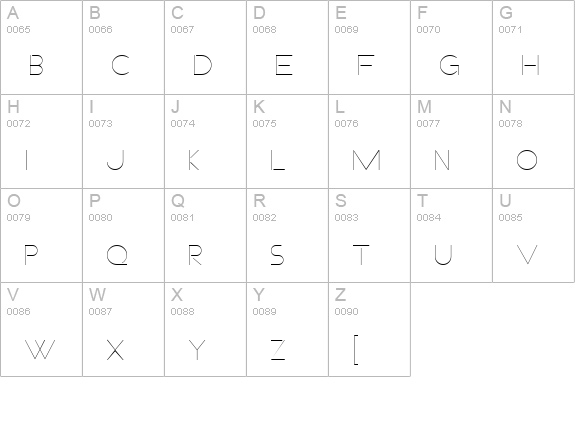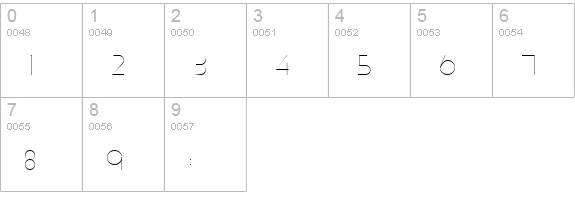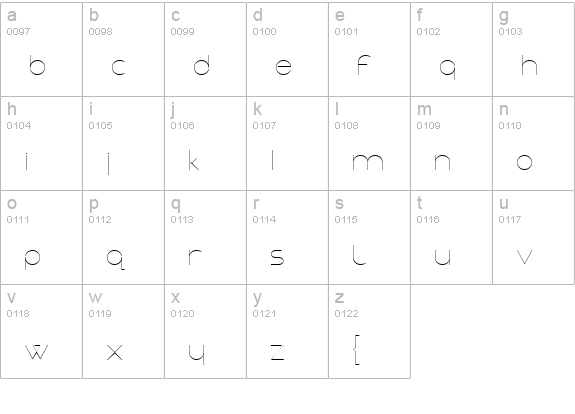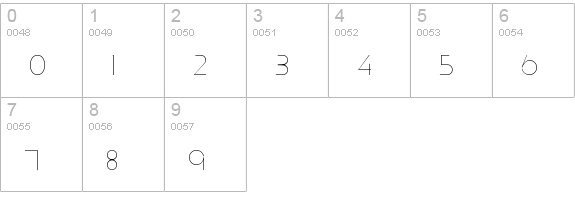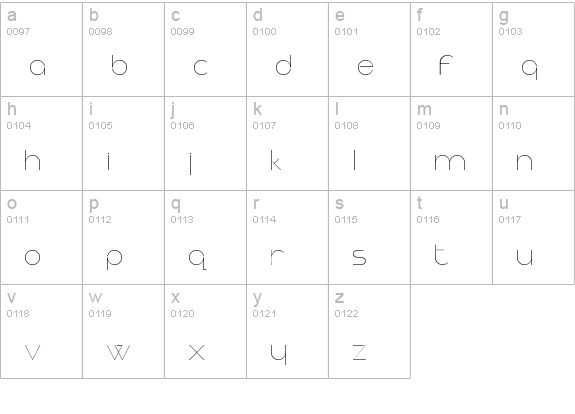
FineLine Font Details
FineLine font is a modern and elegant typeface designed for those who appreciate the beauty of simplicity. With its thin and delicate lines, FineLine exudes a sense of sophistication and refinement that is perfect for various design projects, from branding to invitations and beyond. This versatile font is ideal for creating a sleek and stylish look that will captivate your audience. Best of all, FineLine font is free to download at FontsMarket.com, making it accessible to anyone looking to add a touch of elegance to their designs without breaking the bank. Whether you're a graphic designer, a blogger, or a small business owner, FineLine font is a valuable addition to your font collection. Download it today and elevate your projects with its timeless charm and grace.